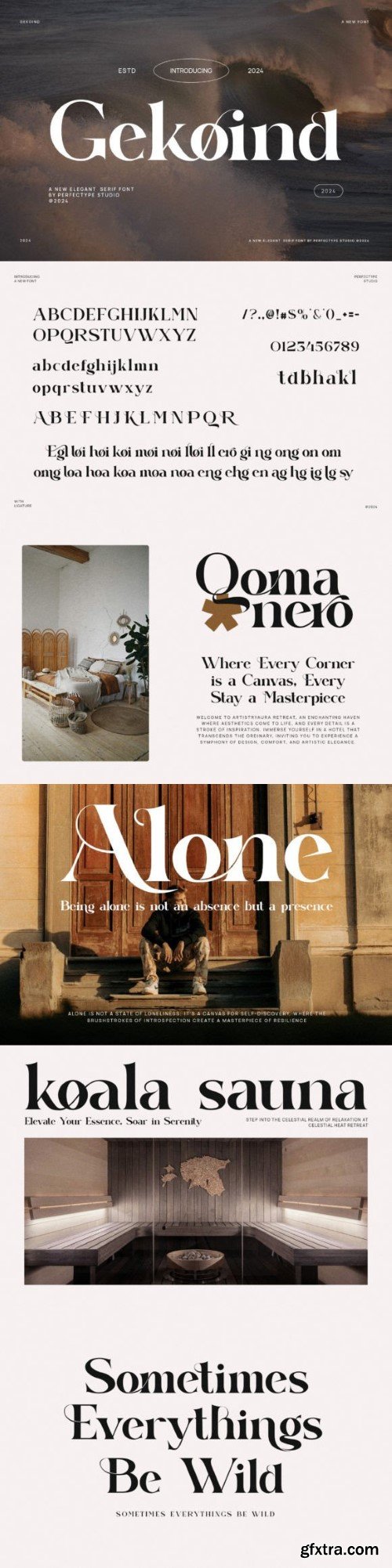
Gekoind is a classy serif typeface that brings sophistication to your designs. With its elegant appearance, it adds a touch of style to any project. Perfect for headings, logos, and more, Gekoind effortlessly combines classic charm with modern flair. This font is PUA encoded which means you can access all of the amazing glyphs and ligatures with ease!